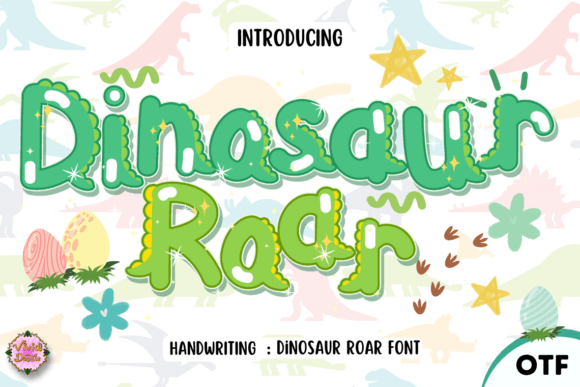
Elevate Your Designs with the Roar of Creativity
Have you ever been brainstorming a new design project, flipping through font options, and suddenly, a spark of inspiration hits? Maybe it’s the perfect font that brings your idea to life. For designers, the right font can make all the difference between a good design and a great one. This is where the Dinosaurs Roar Font comes in – a uniquely crafted typeface designed to add a playful touch to any project.
With the Dinosaurs Roar Font, you can infuse your creations with the festive cheer and warmth of the season. This adorable font is perfect for decorating your projects, from invitations to social media graphics, and everything in between. Whether you’re a seasoned designer or a creative enthusiast, this font is sure to bring a smile to your face and a roar of excitement to your designs.
Dinosaurs Roar Font Key Features
- Font Family: Dinosaurs Roar is a unique font family that mimics the roar of dinosaurs, designed to add a prehistoric touch to various designs.
- Character Set: The font family includes a wide range of characters, including uppercase and lowercase letters, numbers, punctuation marks, and special characters.
- Unique Characteristics: The font’s unique roar-like design makes it perfect for creating a prehistoric or adventurous atmosphere in designs, logos, and branding materials.
Dinosaurs Roar Font Review
I’ve had the chance to dive into the Dinosaurs Roar Font and here’s my honest review.
- Unique and playful design: The font is perfect for adding a touch of whimsy to your projects.
- High-quality vector graphics: The font is built with high-quality vector graphics, ensuring it scales well for various applications.
- Perfect for themed projects: If you’re working on a project related to dinosaurs or children’s education, this font is a great choice.
- Limited versatility: The font’s design might not be suitable for more formal or professional projects.
- Lack of language support: The font seems to only support English characters, which might be a limitation for multilingual projects.
Overall, the Dinosaurs Roar Font is a fun and engaging font that’s perfect for specific use cases. While it may have some limitations, it’s a great addition to any designer’s toolkit for themed projects.
For best results, use the Dinosaurs Roar Font in bold or italic styles to emphasize text. Common use cases include:
– Children’s book titles or headings
– Educational materials or presentations
– Marketing materials or advertisements with a playful tone
– Personal projects or creative endeavors